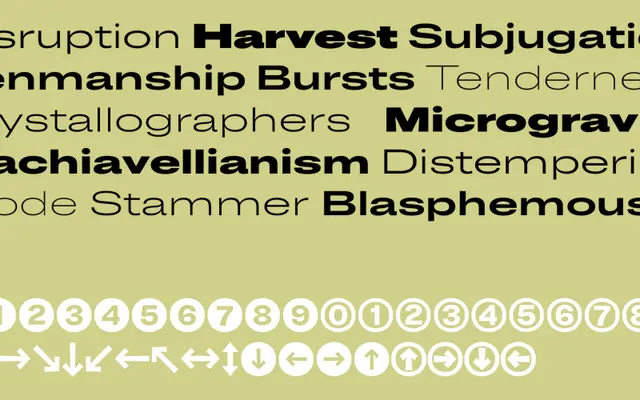
A large-scale grotesque family spanning six widths and eight weights, available as a variable font with width, weight and slant axes.
Running from Condensed to Wide across eight weights from Thin to Black, Cards offers 96 static styles plus slanted counterparts and a single variable font covering all three axes. OpenType features include small caps, old-style figures, ordinals, fractions and a generous set of alternate letterforms for characters such as a, g, r and t. The breadth of the family makes it well suited to publication design, branding systems and any context requiring consistent type across varied measures.
Cards is a contemporary grotesque sans-serif with a wide range of widths and weights. Its alternate letterforms and slanted cuts point to a humanist-grotesque sensibility suited to editorial and identity work.